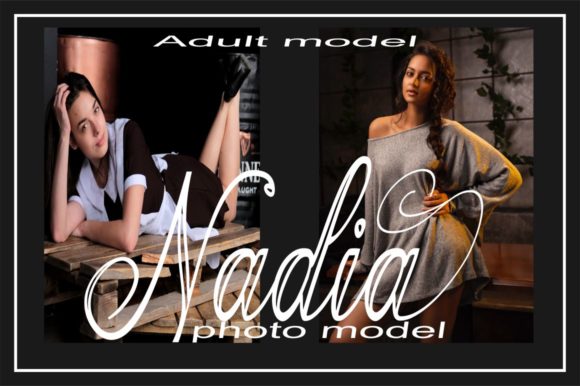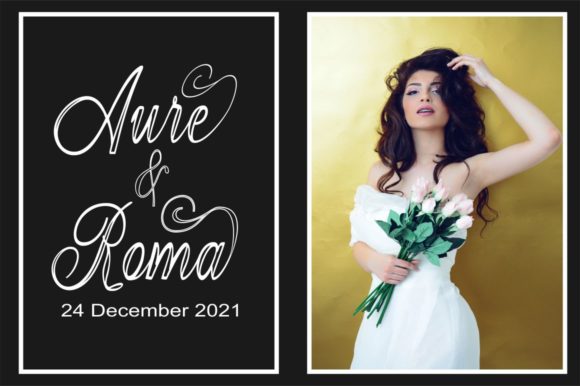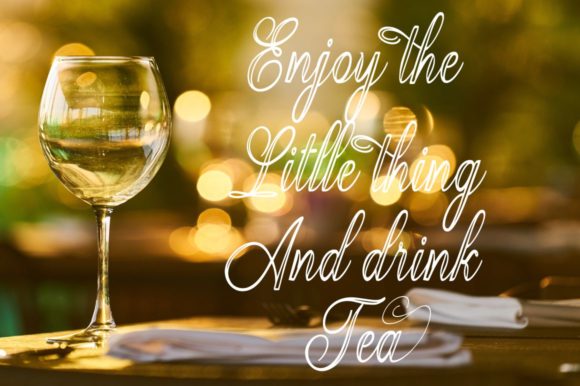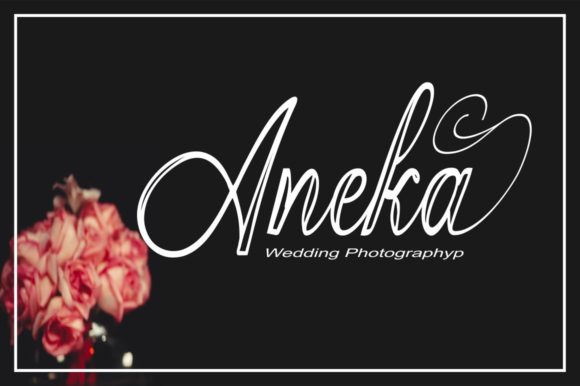
About Ratih Font
Ratih is a new modern calligraphy font.
This font has casual and beautiful style with swash. Can be used for various purposes such as logos, product packaging, wedding invitations, headlines, labels, signatures, book covers, posters, quotes and more.